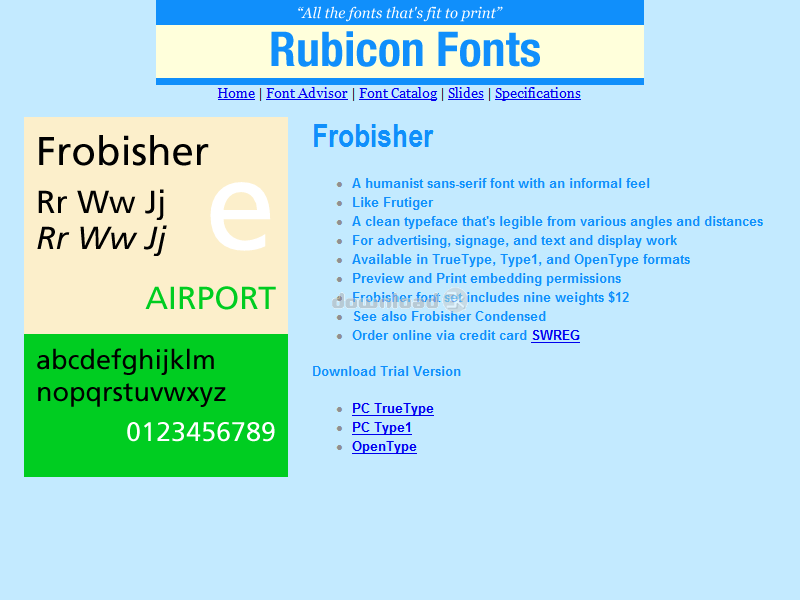
Frobisher Font TT 2.00
"Humanist sans serif font, informal feel"
Humanist sans serif font with an informal feel. Like Frutiger. A clean typeface that?s legible from various angles, sizes, and distances. Great for advertising, signage, and text and display work. Use in any size. Accurate and hinted, matching font metrics, standard character set, kerning pairs. Professional print quality for inkjet, laser, typesetter to 3500 dpi. Purchasers receive 9 font variants as follows: Light, Light Oblique, Normal, Oblique, Bold, Bold Oblique, Extrabold, Extrabold Oblique, Ultrabold.Requirements: No special requirements.